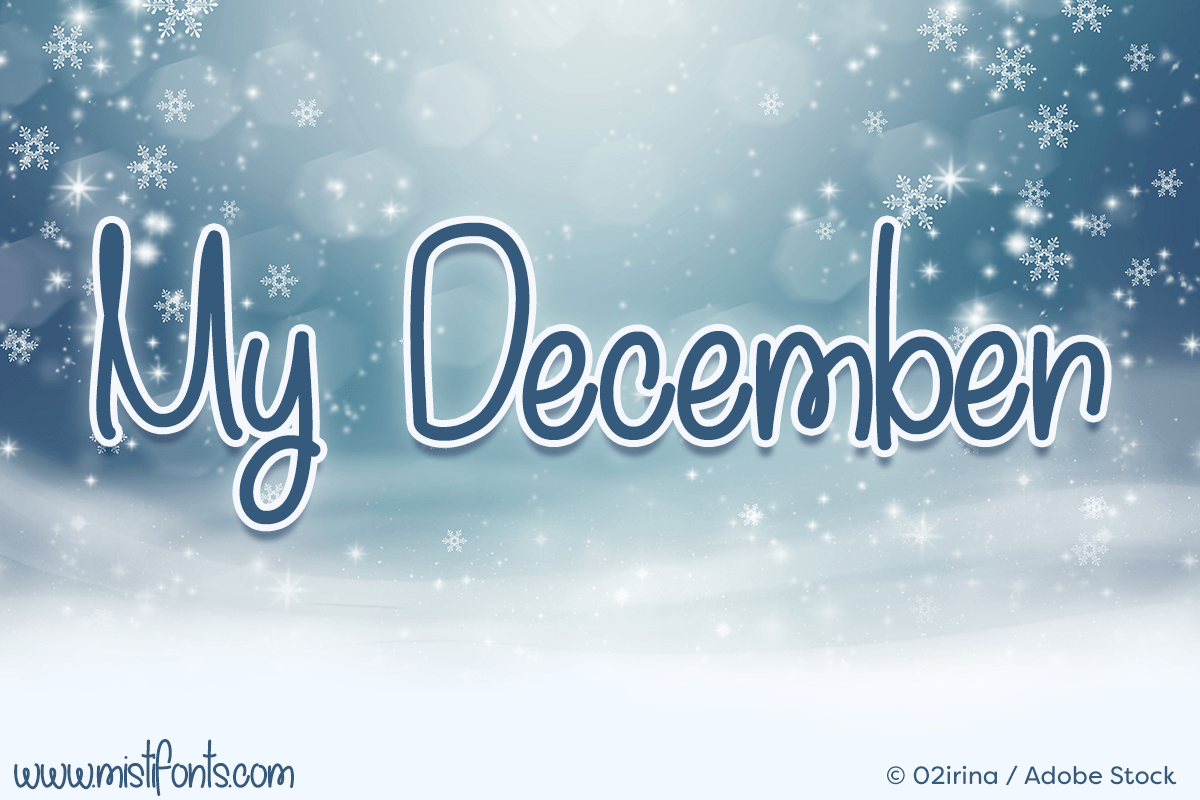
My December
My December is a fun font, full of holiday spirit, that is perfect for a multiplicity of design and craft projects! This is a charming handwritten sans serif font that is sure to cheer up your holidays.